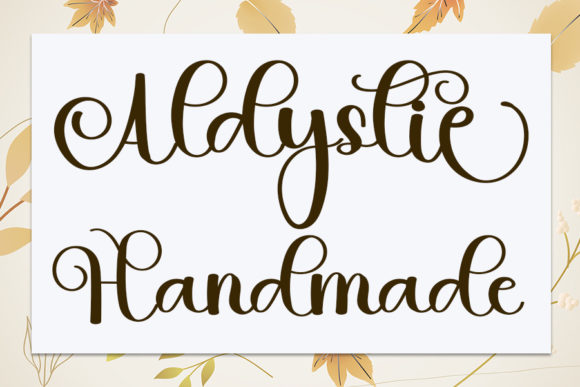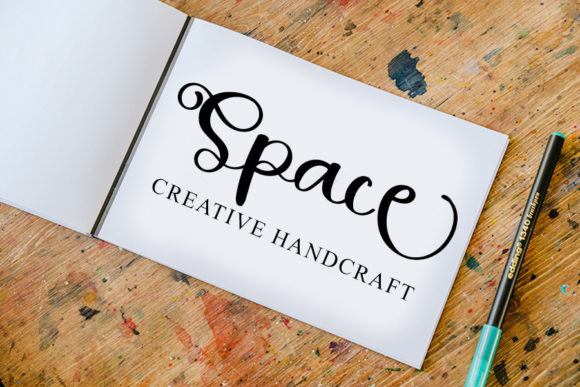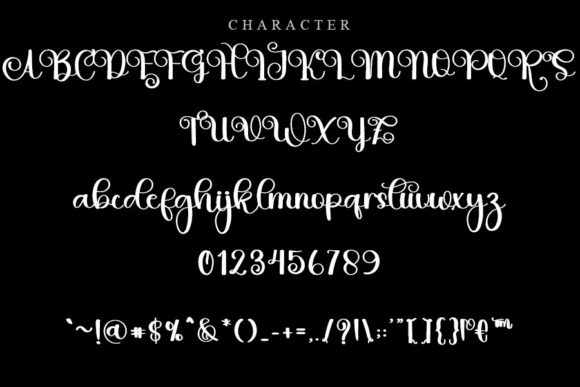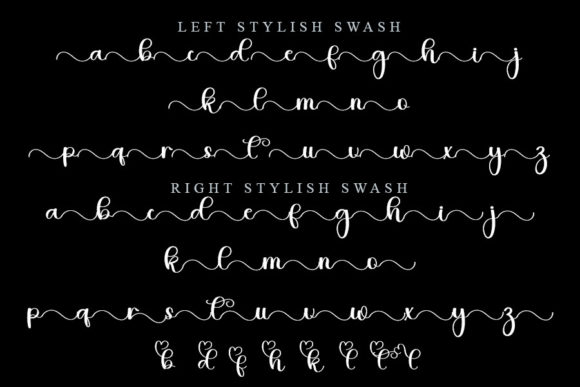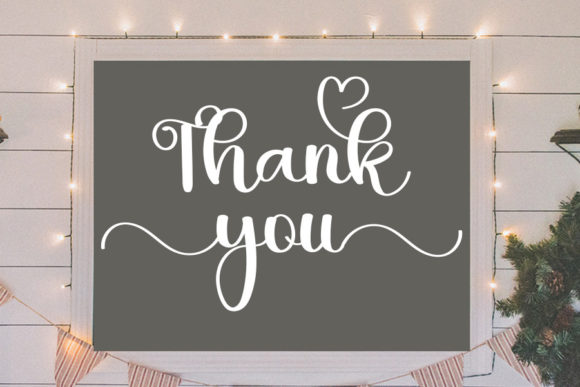
Double Absolute Font – Free Download
Introduction to Double Absolute Font
Double Absolute is a dazzling and highly detailed handwritten font.
Key Features of Double Absolute Font